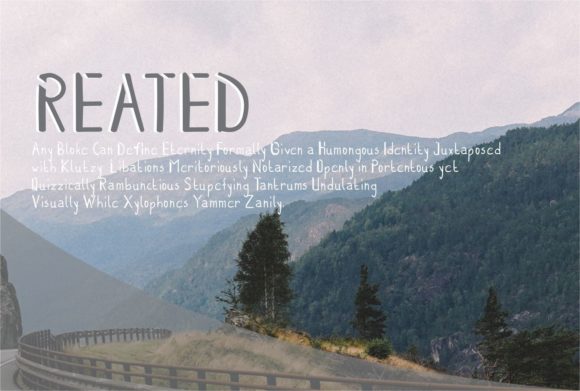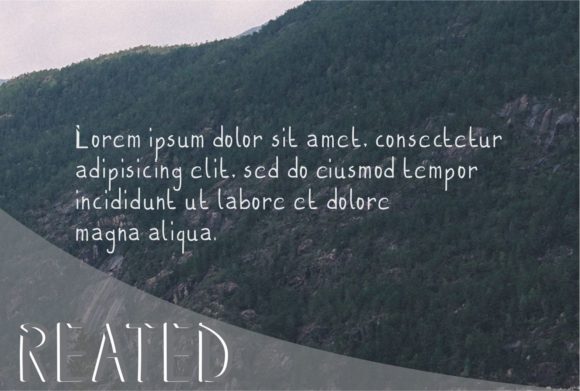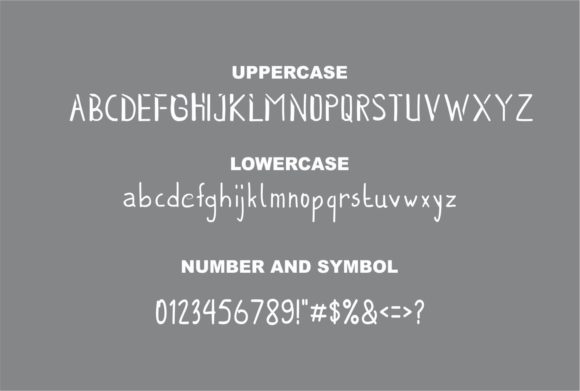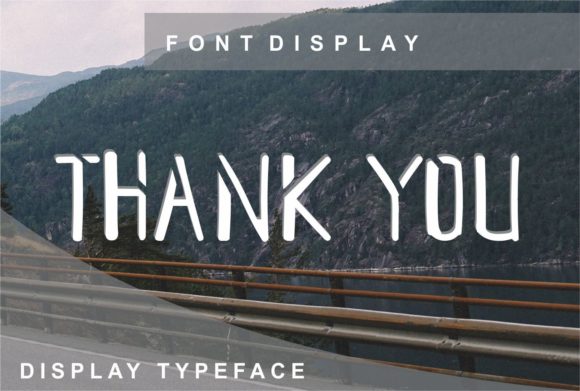
Introduction to Reated Font
Have you ever found yourself staring at a blank canvas, eager to bring your creative vision to life, but struggling to find the perfect font to match your artistic intent? This is a moment we’ve all experienced at some point in our design journey. But what if I told you that there’s a font that can elevate any creative project and make your design shine? Enter the Reated Font, a game-changing display font that’s about to become your new go-to design resource.
With its adaptable and trendy design, the Reated Font is the perfect addition to any designer’s library. Whether you’re working on a project with a transparent background or need a high-quality font to make your text stand out, this font has got you covered. And the best part? It’s available for free download, making it an accessible and valuable resource for designers of all levels.
Key Features of Reated Font
- High-Quality Design Resource: Reated Font is a professional-grade font designed to elevate your creative project with its unique and elegant style.
- Perfect for Creative Projects: Whether you’re working on a logo, poster, or website, Reated Font is the perfect choice to add a touch of sophistication and elegance to your design.
Honest Review: Reated Font
As a designer, I’m always on the lookout for high-quality design resources that can elevate my creative projects. Reated Font has caught my attention, and I’m excited to share my honest review with you.
- ✨ High-quality design: The font is sleek, modern, and perfect for a variety of creative projects.
- ⚠️ Limited font styles: Reated Font has a limited number of font styles, which might not be suitable for designers who require a wide range of options.
Overall, I’m impressed with Reated Font’s quality and versatility. While it may not be perfect, it’s an excellent resource for designers working on personal projects or looking for a free design solution.
Common Use Cases for Reated Font
Reated Font is ideal for logos, branding materials, and marketing collateral. It can also be used in creative projects such as infographics, posters, and social media graphics. With its high-quality design and free download option, Reated Font is a valuable resource for designers of all levels.